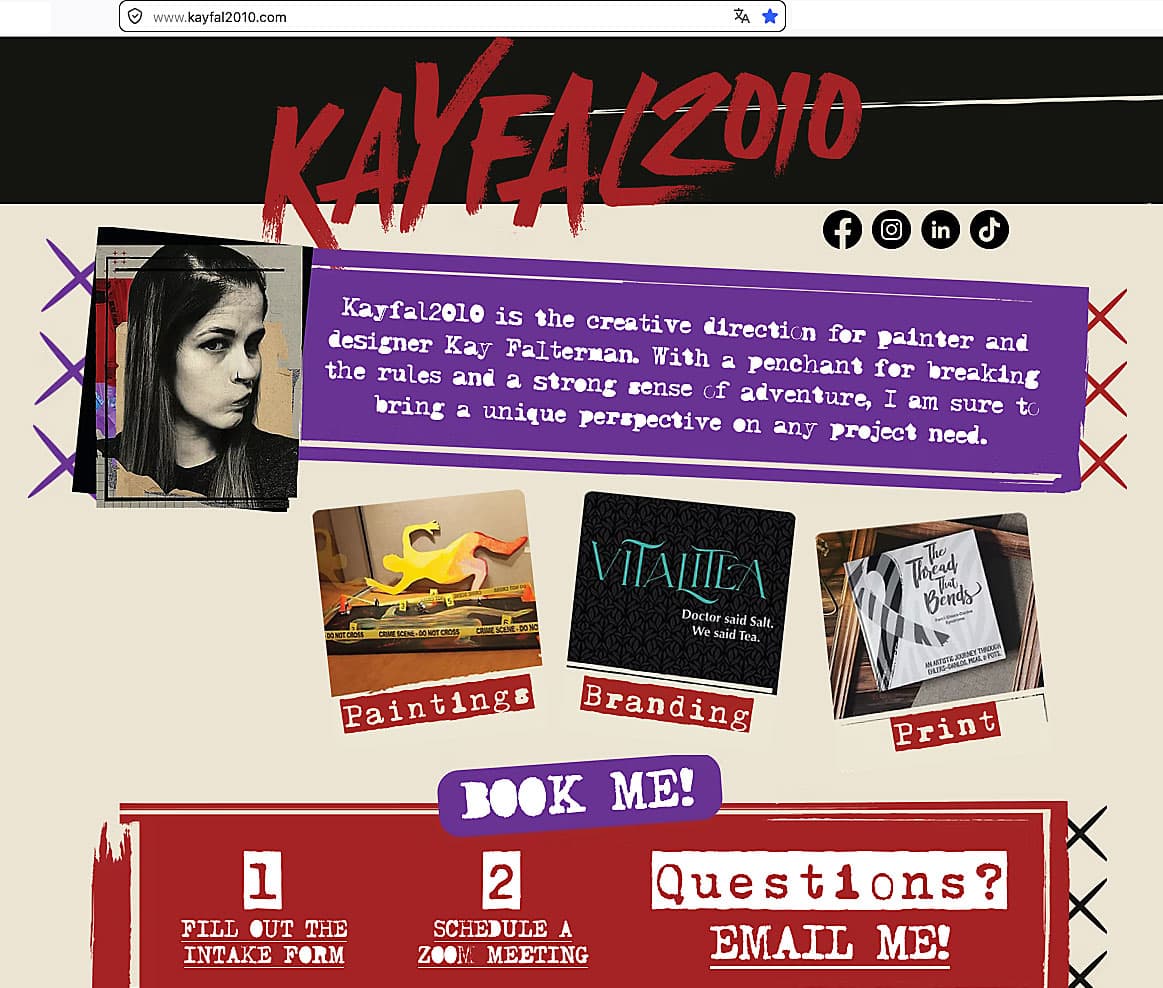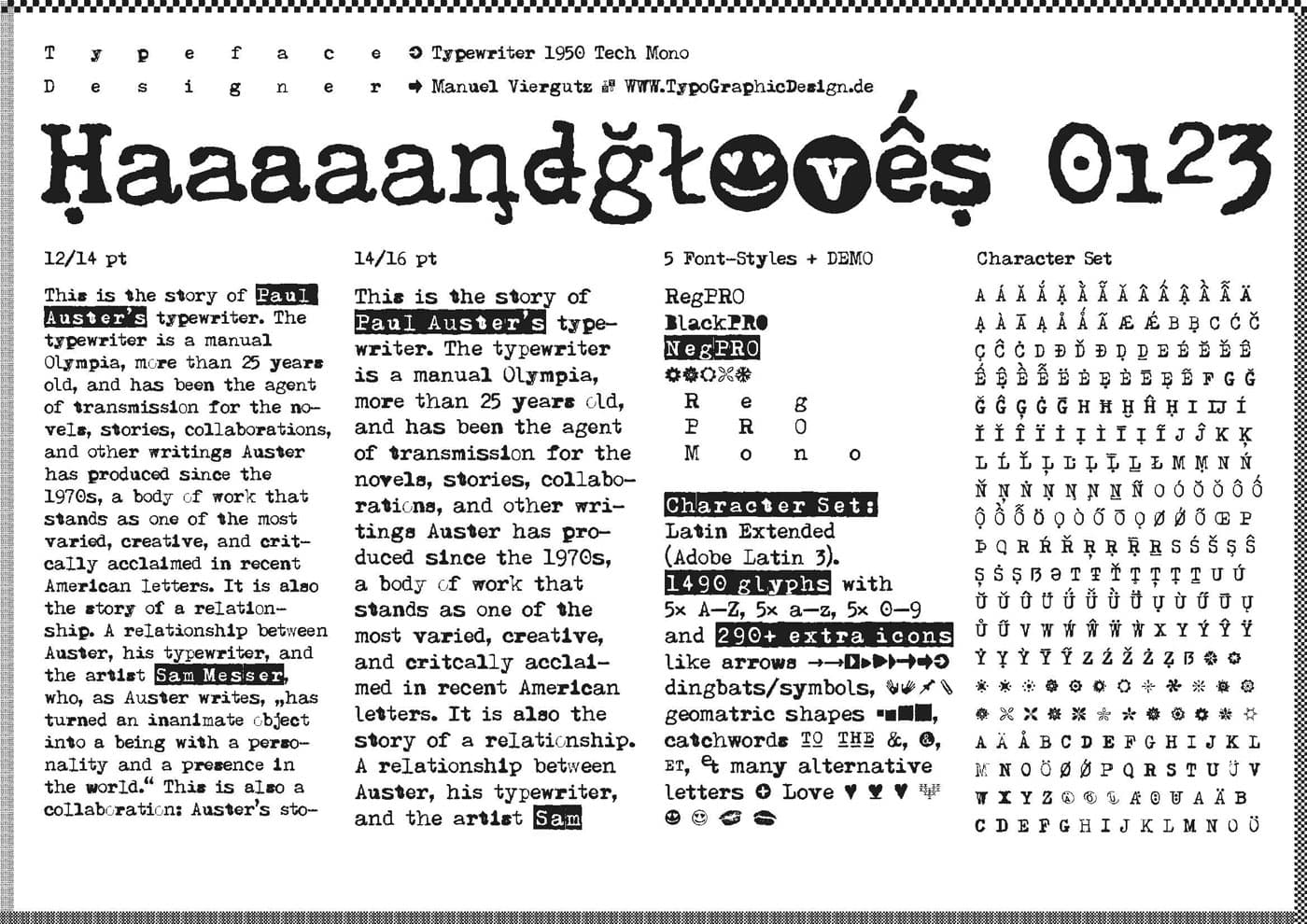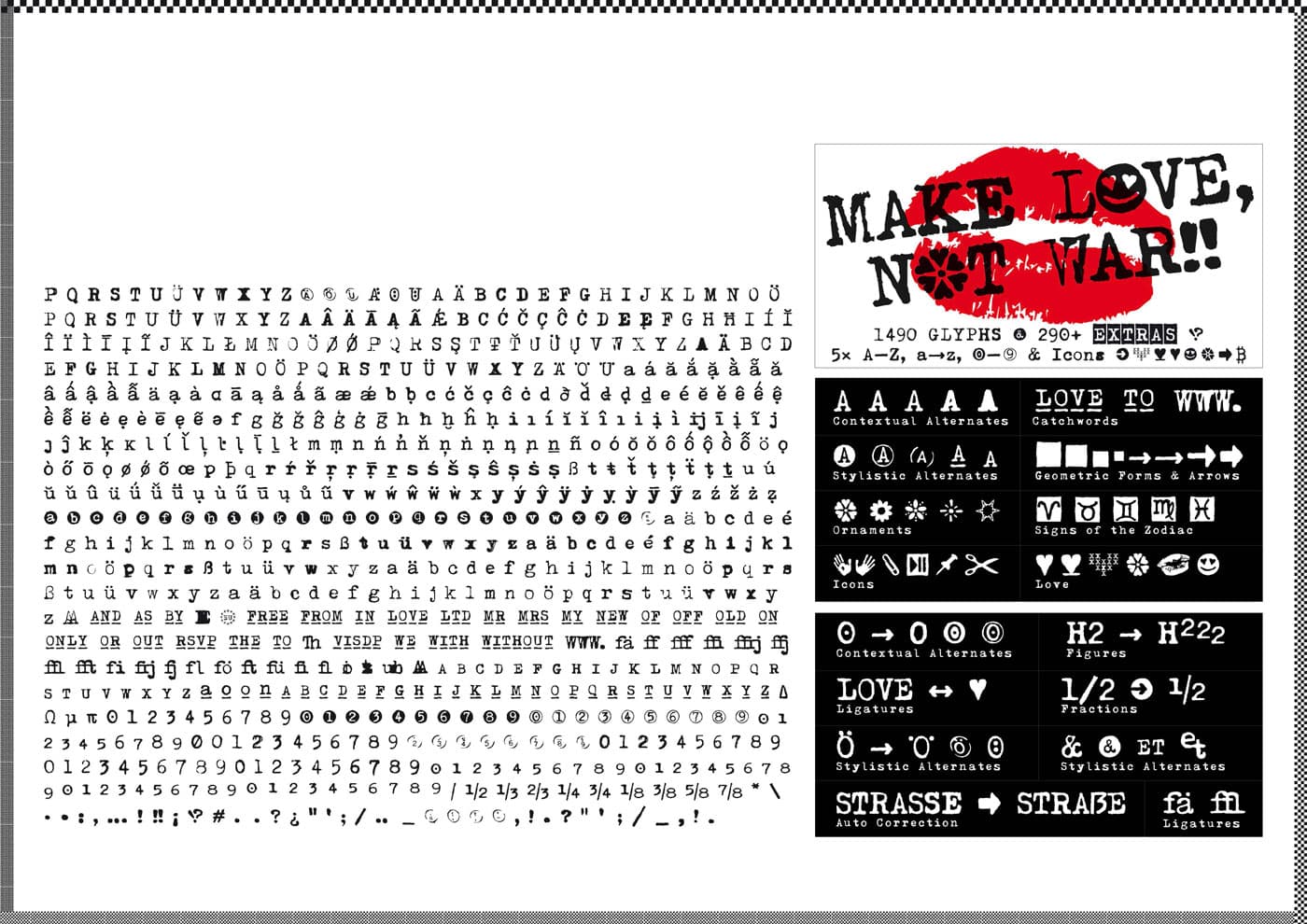
The typeface Typewriter 1950 Tech Mono is designed for the Typo Graphic Design font foundry in 2017 by Manuel Viergutz. A display slab serif type for headlines. Based on an old typewriter machine from 1950. Plus state-of-the-art OpenType-features like contextual alternates (calt), decorative ligatures (dlig). Type the word “LOVE” for ❤ and the word “SMILE” for ☺ and Versal Eszett (German Capital Sharp S).
For use in magazines, posters, headlines and advertisement, plus as webfont for decorative headlines.
1490 glyphs with 290+ extra icons like arrows, dingbats, symbols, geomatric shapes, catchwords and many alternative letters. (5× A–Z, 5× a–z, 5× 0–9). Character Set: Latin Extended (Adobe Latin 3).
Font In Use with the typeface Typewriter 1950 Tech Mono as Web Font and Desktop Font used by Kay Falterman for the Website kayfal2010.com © Typedesign by Manuel Viergutz TypoGraphicDesign.de
■ Font Name: Typewriter 1950 Tech Mono
■ Font Weights: Regular + Negative + Black + Mono + Icons + DEMO (with reduced glyph-set)
■ Font Category: Slab Serif Display for Headline Size
■ Glyph Set: 1490 glyphs (Adobe Latin 3)
■ Specials: 290+ decorative extras like icons for arrows, dingbats, emojis, symbols, geometric shapes, catchwords + German Capital Eszett + sign of zodiac
Open Type Features: Kerning (kern), Stylistic Set 1 (ss01) … Stylistic Set 6 (ss06), Ornaments (ornm), Titling (titl), Localized Forms (locl), Subscript (subs) Superscript (sups), Ordinals (ordn), Oldstyle Figures (onum), Lining Figures (lnum), Fractions (frac), Denominators (dnom), Numerators (numr), Standard Ligatures (liga), Contextual Alternates (calt) e. g. Stylistic Set-Loop and Decorative Ligatures (dlig) e. g. type the word “LOVE” for ❤ or “SMILE” for ☺
■ Design Date: 2017–2018
■ Type Designer: Manuel Viergutz